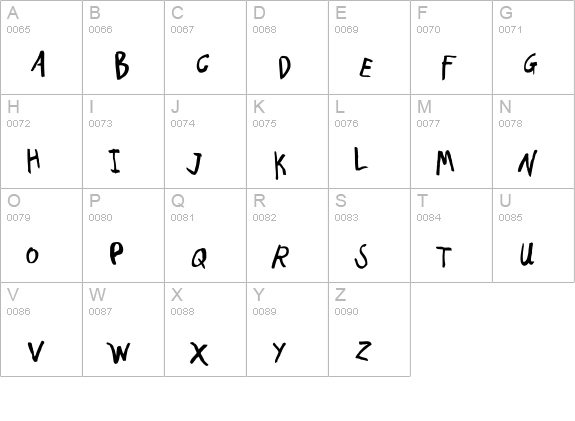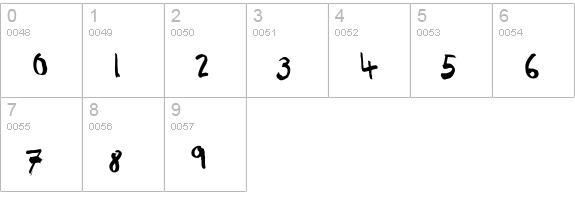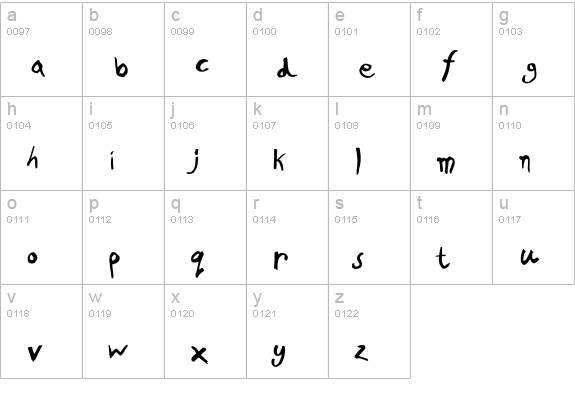
PFKidsPro-GradeThree Font Details
PFKidsPro-GradeThree font is a charming and playful typeface designed specifically for third graders. With its friendly and approachable appearance, this font is perfect for educational materials, children's books, and creative projects aimed at young learners. The letters are easy to read and engaging, making them ideal for capturing the attention of young readers. One of the best features of PFKidsPro-GradeThree font is that it is available for free download at FontsMarket.com. This means that educators, parents, and designers can easily access this delightful font without any cost. Whether you are creating worksheets, posters, or invitations, PFKidsPro-GradeThree font is a fantastic choice for adding a touch of fun and whimsy to your designs. Bring a sense of joy and creativity to your projects with the PFKidsPro-GradeThree font. Download it for free today at FontsMarket.com and start incorporating this delightful typeface into your work!